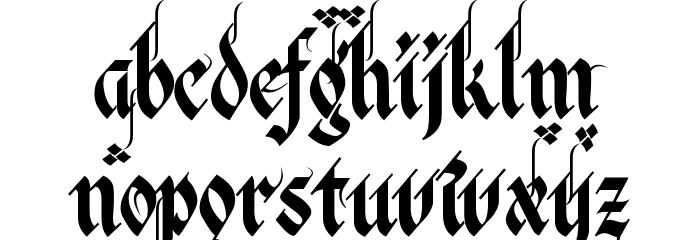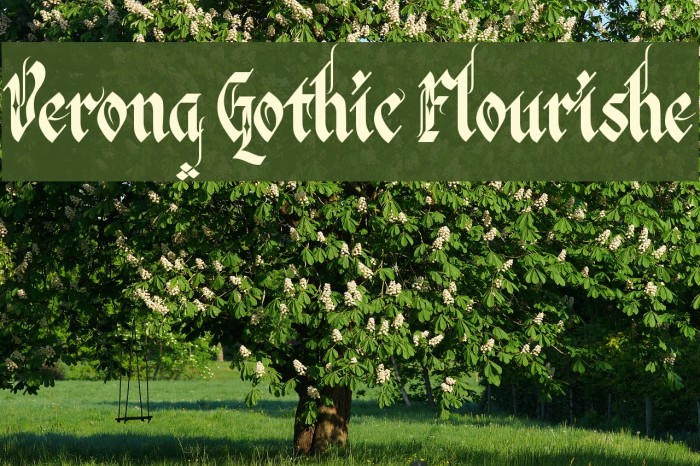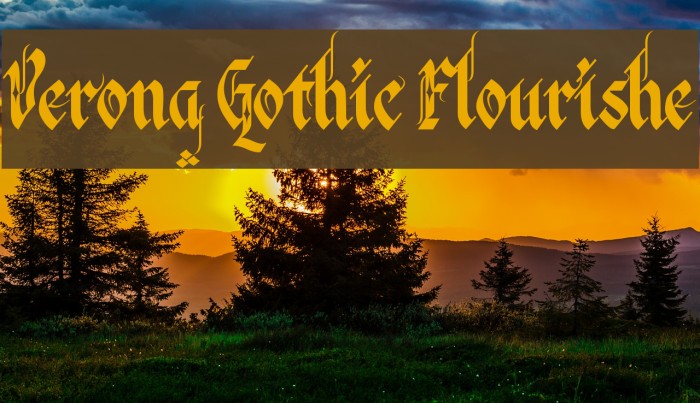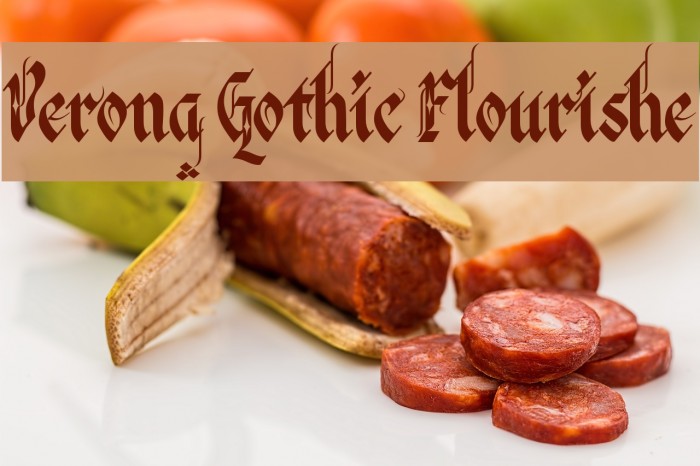
Verona Gothic Flourishe Font
This font exhibits a classic Gothic style with intricate flourishes and sharp, angular lines. The uppercase letters are bold and dramatic, featuring pointed serifs and elaborate detailing that give a sense of historical elegance. The lowercase letters maintain the same ornate style, with a slightly more condensed form, allowing for a harmonious flow of text. Numbers and special characters are designed to match the overall aesthetic, with consistent weight and embellishments. This font's high contrast between thick and thin strokes enhances its readability while maintaining its decorative appeal.
A bold, Gothic-style font with intricate flourishes and high contrast.
- Proposed Projects: Ideal for projects requiring a historical or medieval theme, such as book covers, posters, or branding for themed events.
- Category: Blackletter
- Overall Style: Vintage
- Use Case: Headlines, Logos, Decorative text